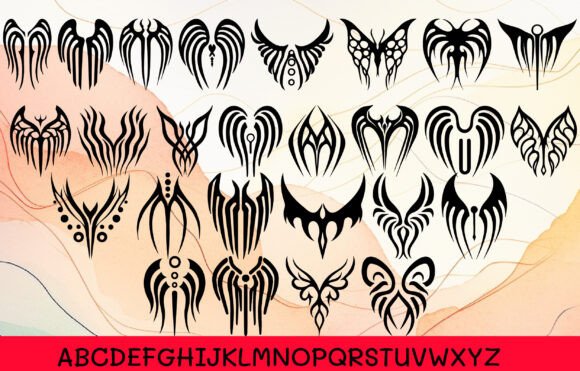
Elevate Your Designs with Beautiful Angel Wings Font
Are you looking for a way to add a touch of heavenliness to your creative projects? Look no further than the Beautiful Angel Wings Font, a stunning dingbat font that offers 26 unique, intricate wing designs, each corresponding to a letter from A to Z. In this article, we’ll explore the features and benefits of this beautiful font and how it can elevate your designs to new heights.
What is Beautiful Angel Wings Font?
Beautiful Angel Wings Font is a dingbat font that features 26 elegant wing designs, each corresponding to a letter of the alphabet. These intricate designs are perfect for adding a celestial flair to your creative projects, whether you’re a designer, crafter, or DIY enthusiast. With this font, you can create stunning invitations, logos, and other design elements that are sure to impress.
Key Features of Beautiful Angel Wings Font
- 26 Unique Wing Designs: Each letter from A to Z has its own unique wing design, offering a wide range of creative possibilities.
- Elegant and Intricate: The wing designs are intricately detailed, making them perfect for projects that require a high level of sophistication.
- Heavenly Touch: The font adds a touch of heavenliness to your designs, making them perfect for projects that require a celestial or spiritual theme.
- Versatile: The font can be used for a wide range of projects, including crafting, invitations, logos, and more.
Benefits of Using Beautiful Angel Wings Font
So why choose Beautiful Angel Wings Font for your next project? Here are just a few benefits of using this stunning font:
- Adds a Touch of Elegance: The font’s intricate wing designs add a level of sophistication and elegance to your designs.
- Time-Saving: With 26 unique wing designs at your fingertips, you can create stunning designs in no time.
- Unique and Creative: The font’s unique wing designs will set your projects apart from the rest, making them truly one-of-a-kind.
Creative Ways to Use Beautiful Angel Wings Font
So how can you use Beautiful Angel Wings Font in your creative projects? Here are a few ideas to get you started:
- Invitations: Use the font to create stunning invitations for weddings, baby showers, and other special occasions.
- Logos: Add a touch of elegance to your logo with the font’s intricate wing designs.
- Crafting: Use the font to create beautiful craft projects, such as scrapbooking, card making, and more.
- Social Media Graphics: Use the font to create stunning social media graphics, such as Facebook posts and Instagram stories.
Tips and Tricks for Using Beautiful Angel Wings Font
Here are a few tips and tricks for getting the most out of Beautiful Angel Wings Font:
- Experiment with Different Colors: Try pairing the font with different colors to create a unique and eye-catching design.
- Use with Other Fonts: Combine the font with other fonts to create a stunning and unique design.
- Play with Size: Experiment with different font sizes to create a visually appealing design.
Beautiful Angel Wings Font is a stunning dingbat font that offers 26 unique, intricate wing designs, each corresponding to a letter from A to Z. With its elegant and intricate designs, this font is perfect for adding a touch of heavenliness to your creative projects. Whether you’re a designer, crafter, or DIY enthusiast, this font is sure to elevate your designs to new heights. So why wait? Download Beautiful Angel Wings Font today and start creating stunning designs that are sure to impress!